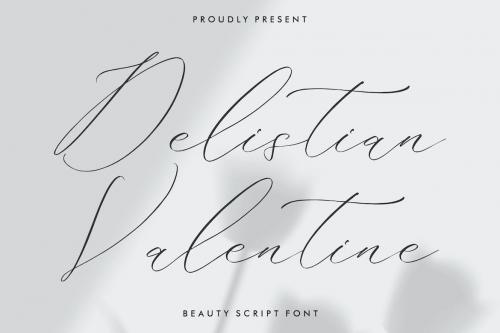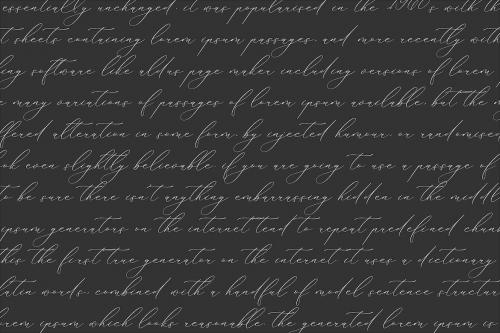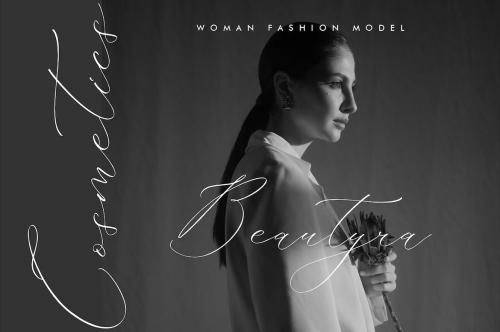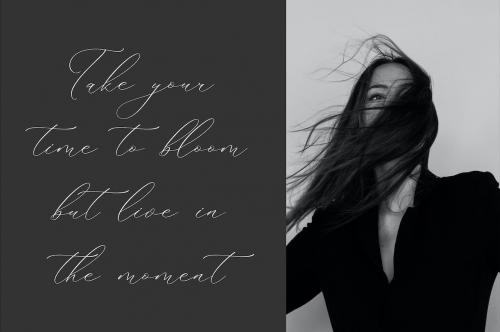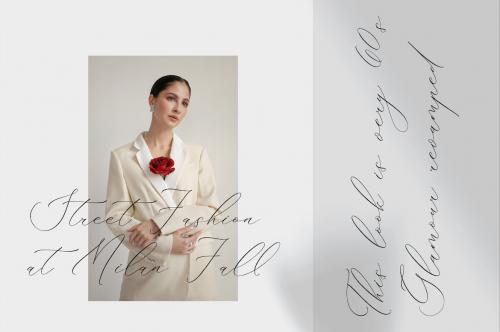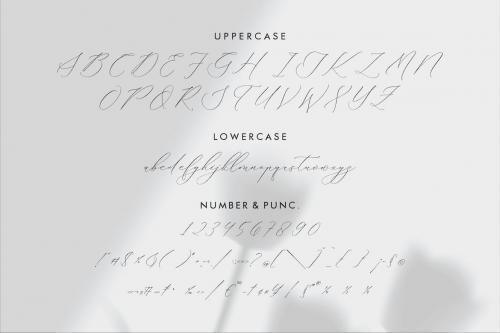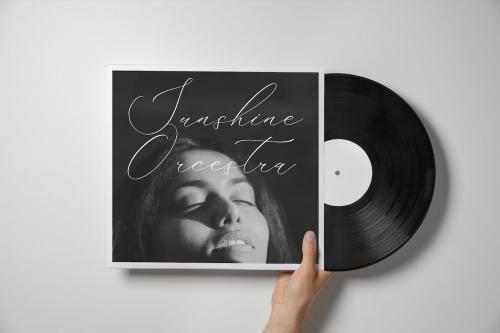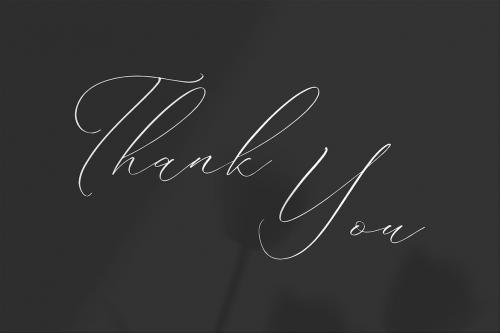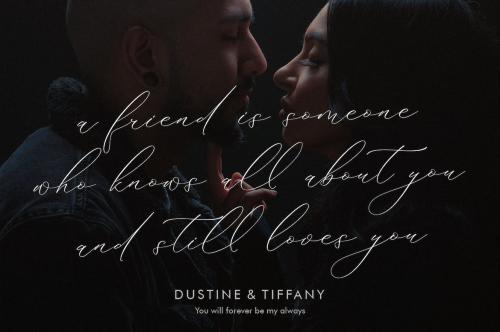
Delistian Valentine Script Font
Hi ladies & gentlemen, this is one of our fonts suitable to complement your digital and printed creative products.
This font is perfect for posters, social media posts, branding, personal projects, etc.